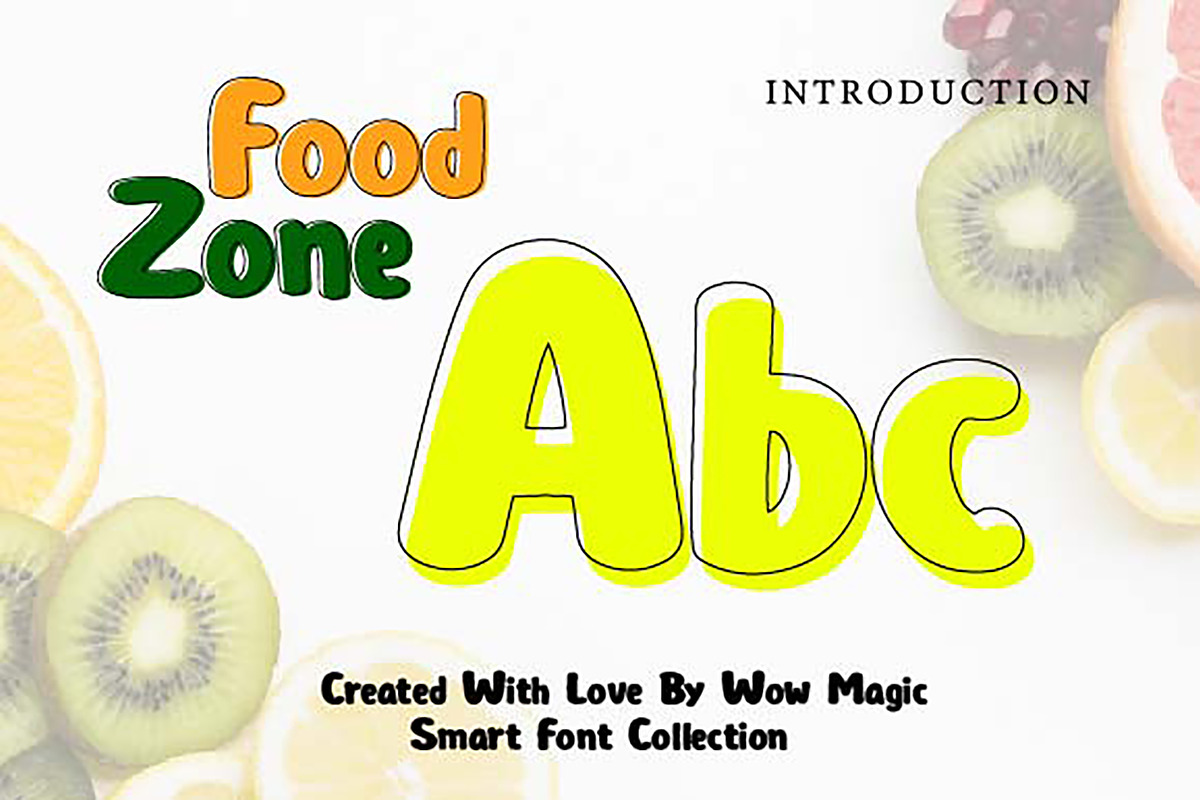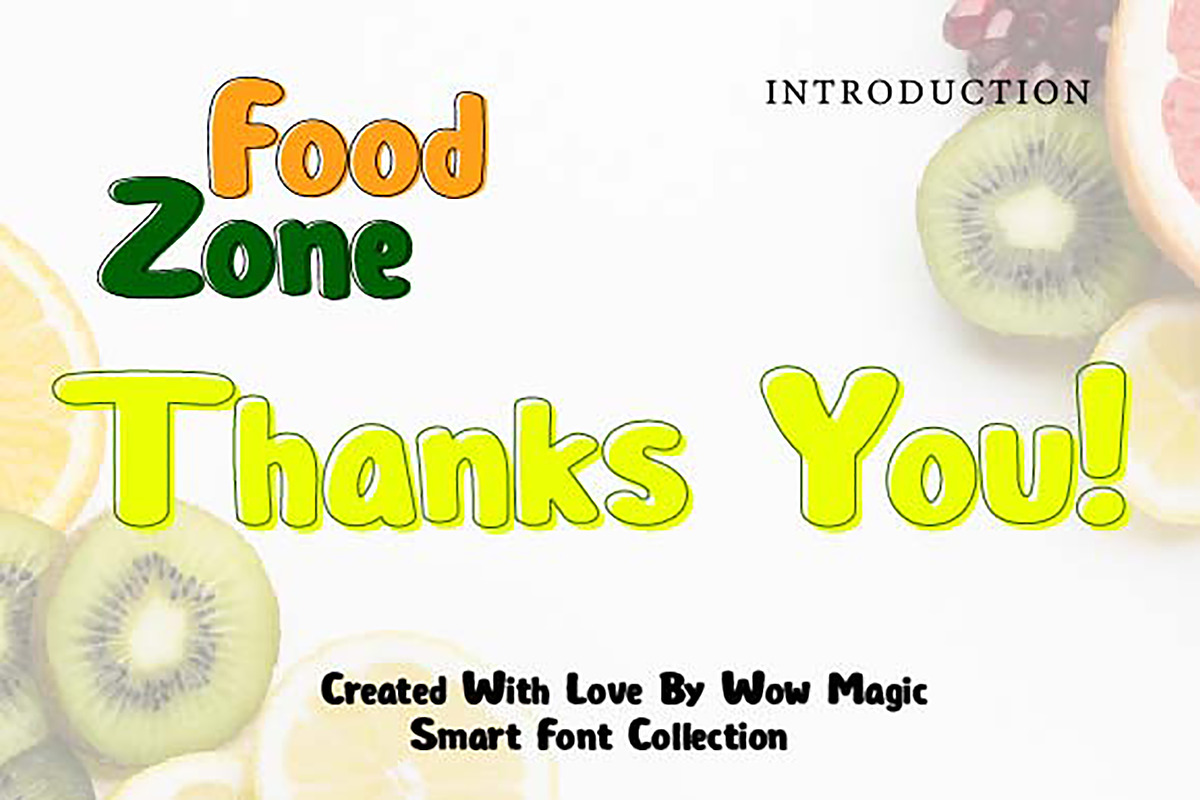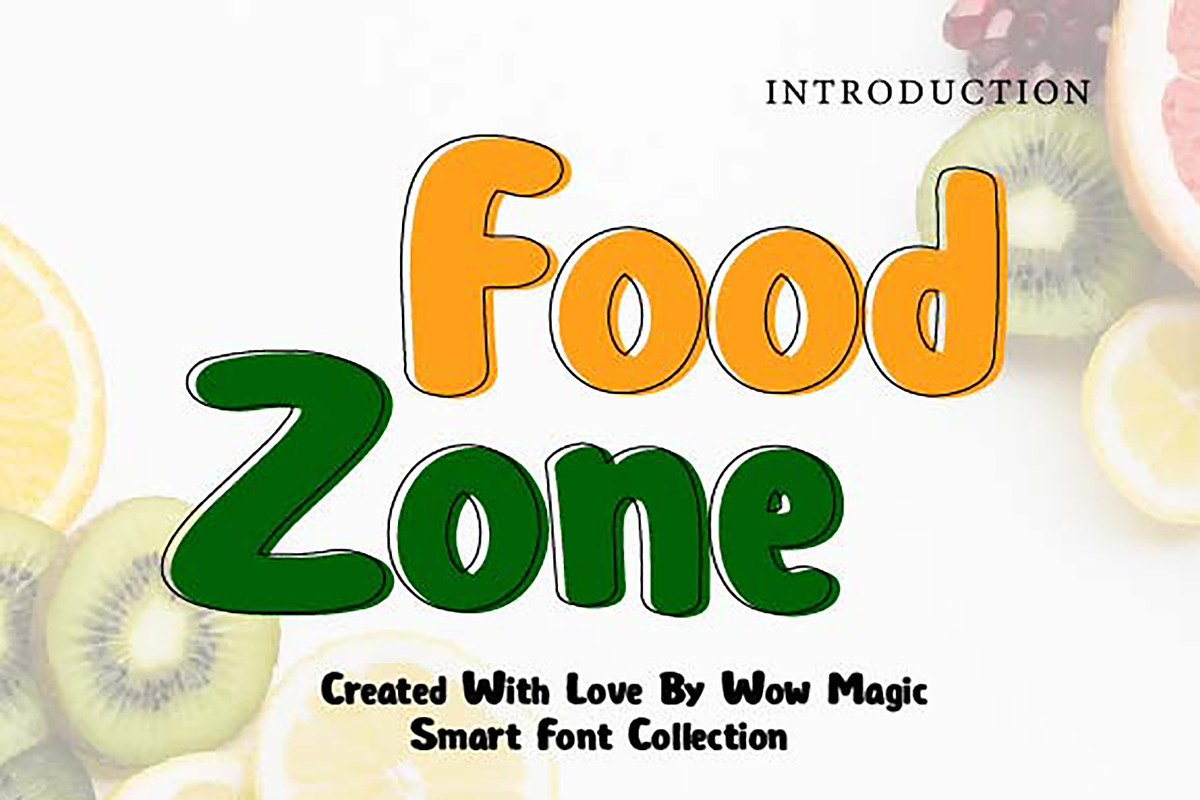
Food Zone
Food Zone – Fun Bold Display Font
Food Zone is a fun bold display font with a playful, friendly, and delicious personality. Designed with soft curves, chunky shapes, and a cheerful handcrafted feel, this typeface is perfect for food-related designs that need to look eye-catching, tasty, and full of charm.
With its bold and rounded letterforms, Food Zone works beautifully for restaurant branding, café logos, food packaging, menu designs, snack labels, social media promotions, posters, and kids-friendly product visuals. Its energetic and approachable style helps create a warm and inviting look that instantly grabs attention.
This font is ideal for designers who want a typeface that feels fresh, fun, and full of flavor. Whether you're creating branding for a food business, playful packaging, or promotional graphics, Food Zone adds a tasty and memorable touch to every design.
Why You’ll Love It:
Bold and playful display style Friendly rounded letterforms Perfect for food and beverage branding Fun, warm, and attention-grabbing look Great for both print and digital projects
Short Version:
Food Zone is a fun bold display font with a playful and friendly style. Perfect for restaurant branding, food packaging, café menus, posters, labels, and social media graphics, it brings a delicious, cheerful, and memorable touch to any design.